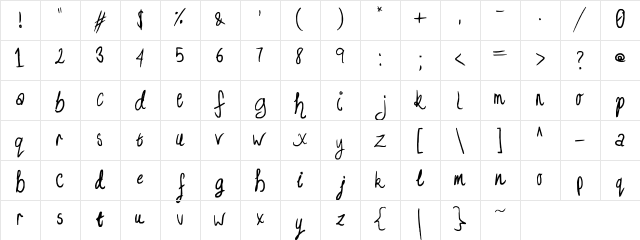
Complete I am more bored than you :P Regular glyph index. Displaying only characters natively supported by I am more bored than you :P Regular font.
I am more bored than you :P is a composed and adaptable typeface that performs quietly and consistently across a wide range of design contexts.